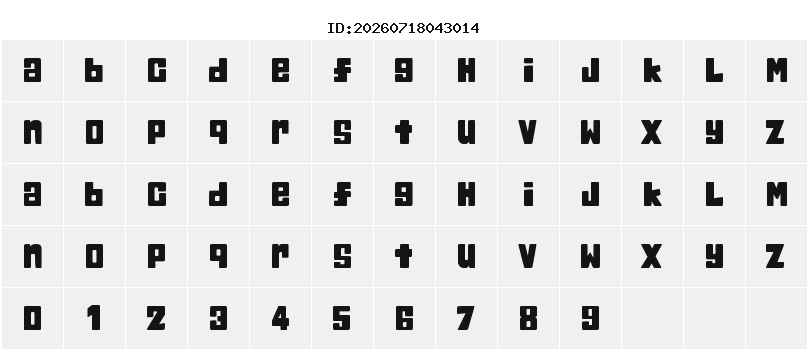
Chum Preview
• Font Name: Chum
• Full Font Name: Chum
About Chum.ttf
Chum.ttf is a modern, elegant sans-serif font designed for ultimate readability and visual harmony. Perfect for branding, headlines, web design, and print materials.